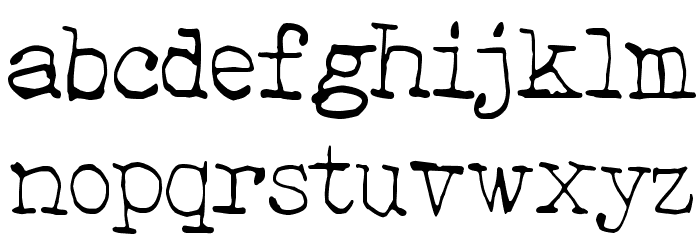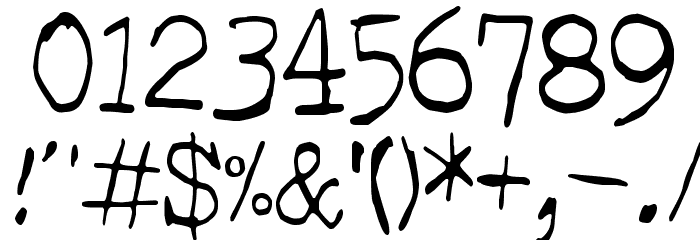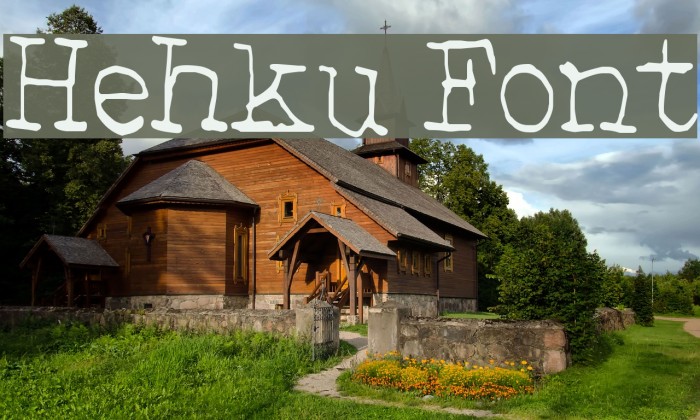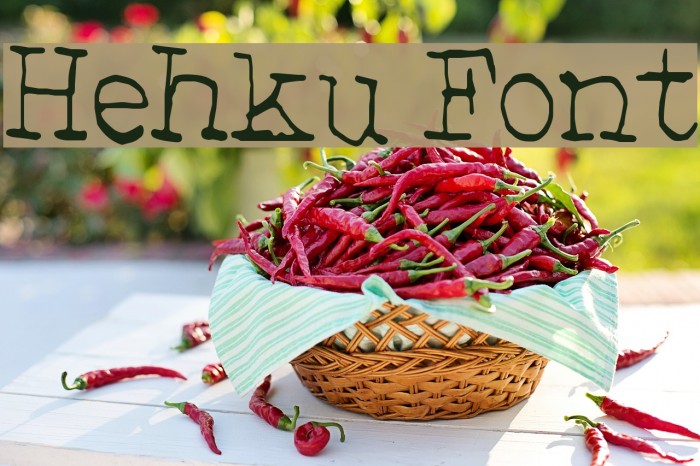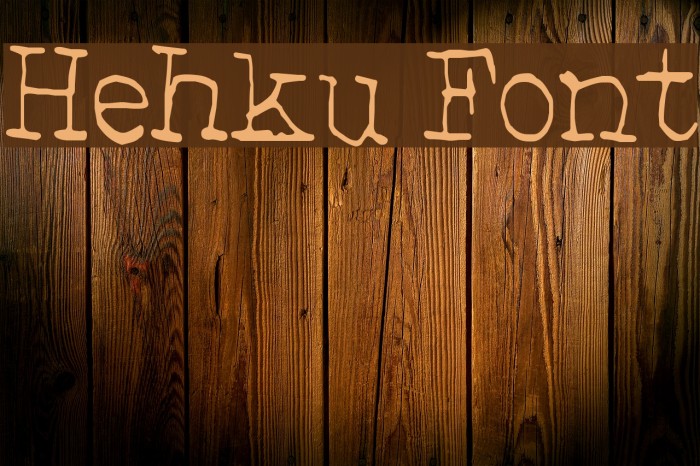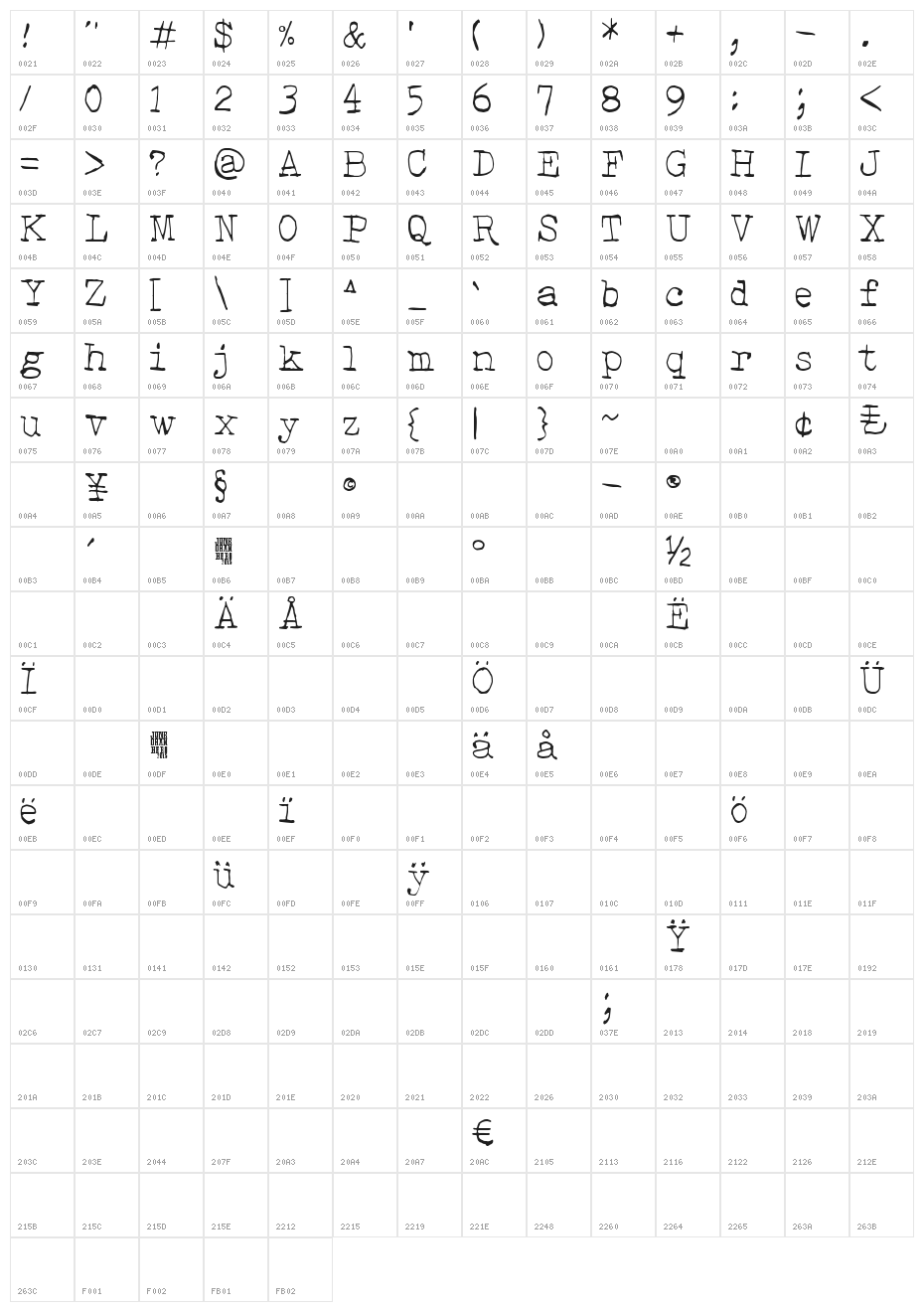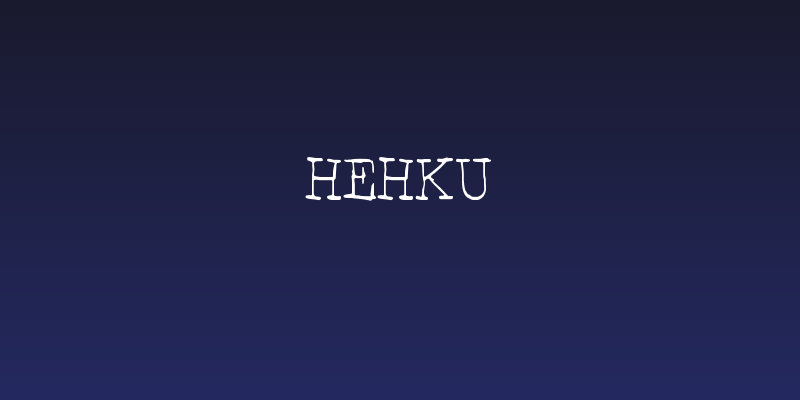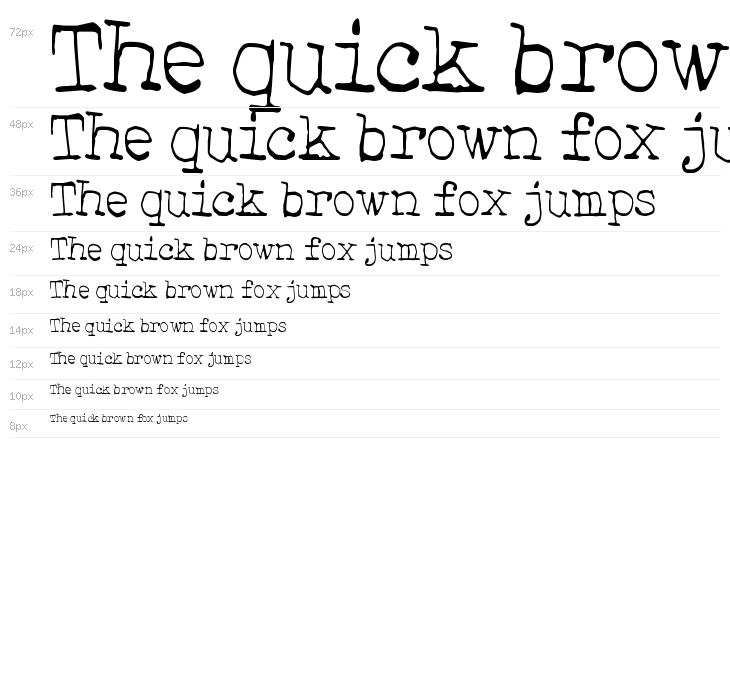
Hehku Font
This font features a playful and slightly irregular design, giving it a hand-drawn appearance. The characters have a whimsical, uneven stroke that adds a sense of movement and personality. Uppercase and lowercase letters maintain a consistent style, with rounded edges and varying line thicknesses that contribute to its informal and approachable look. The numerals and special characters follow the same quirky design, making the font suitable for creative and casual projects. Its unique style can add a touch of fun and creativity to any design.
A playful, hand-drawn font with irregular strokes and a whimsical style.